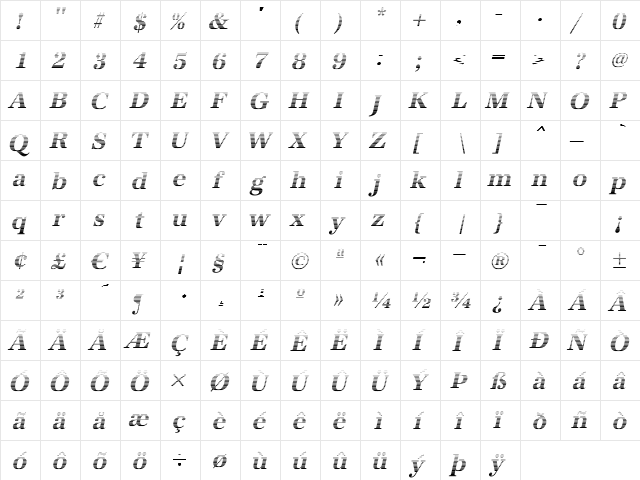
IrisBeckerGradient BoldItalic
Design Context for IrisBeckerGradient Typeface
IrisBeckerGradient is a composed and adaptable typeface that performs quietly and consistently across a wide range of design contexts. Its italic angle brings a sense of urgency and motion to the letterforms. Its bold stroke weight gives it real presence on the page.